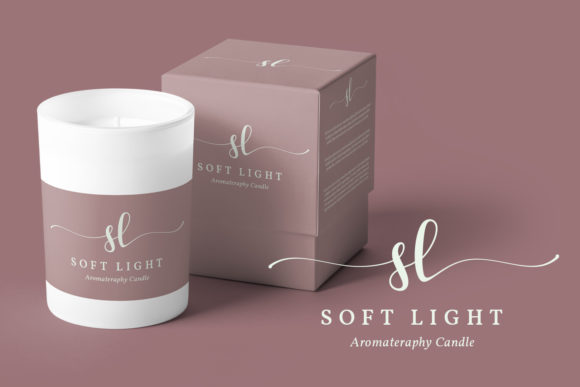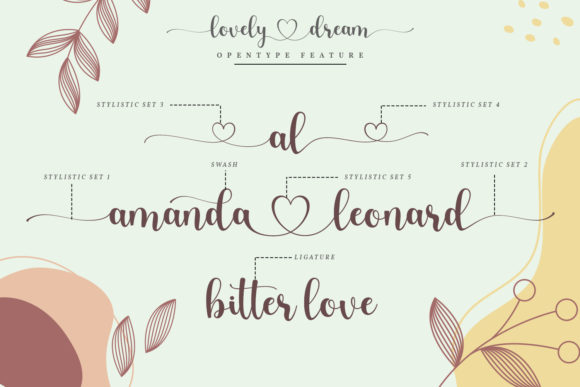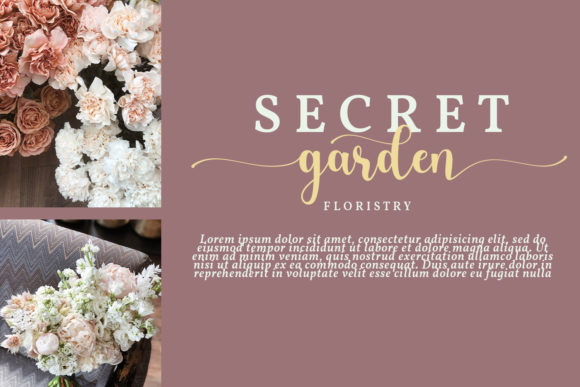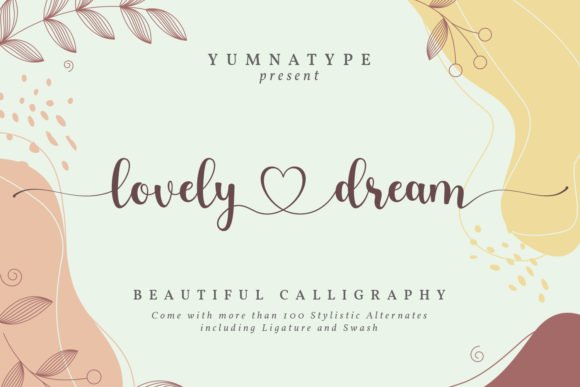
Introduction to Lovely Dream Font
Lovely Dream is a beautiful and romantic handwritten font.
It is PUA encoded, which means that you can access all of the glyphs and swashes with ease It features a varying baseline, smooth lines, gorgeous glyphs and stunning alternates.
Key Features of Lovely Dream Font
Why Choose Lovely Dream Font?
Lovely Dream Font offers exceptional quality and versatility, making it a valuable addition to your design toolkit. Whether you’re creating for personal projects or commercial use, Lovely Dream Font delivers professional results.